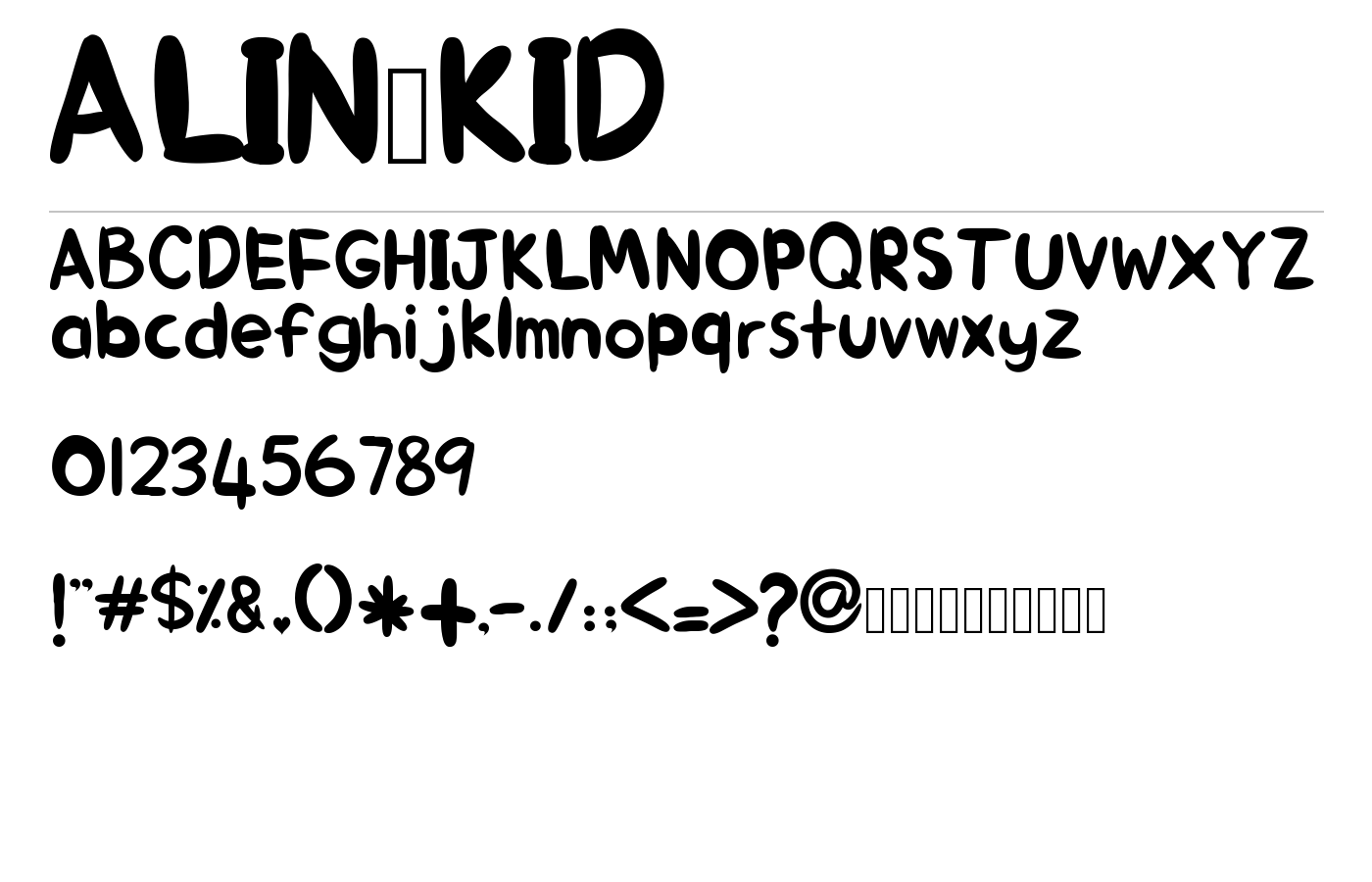
ALIN_KID is a playful, handwritten sans serif font with a casual and friendly feel. Its rounded, chunky letterforms and uneven strokes give it a childlike, approachable personality, making it perfect for designs aimed at kids or informal, fun projects. This font works well for children's books, educational materials, playful logos, and any creative work seeking a warm and lively vibe.
ALIN_KID Font
About ALIN_KID Font